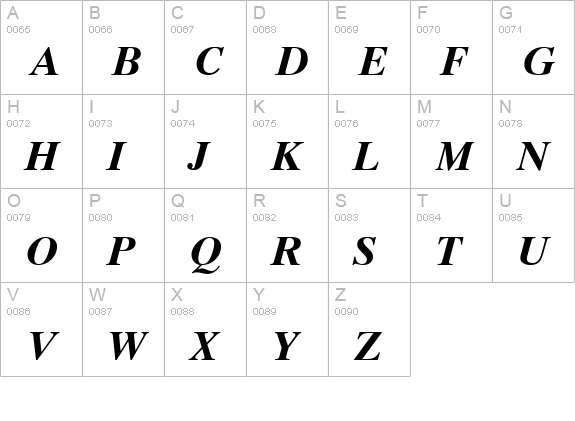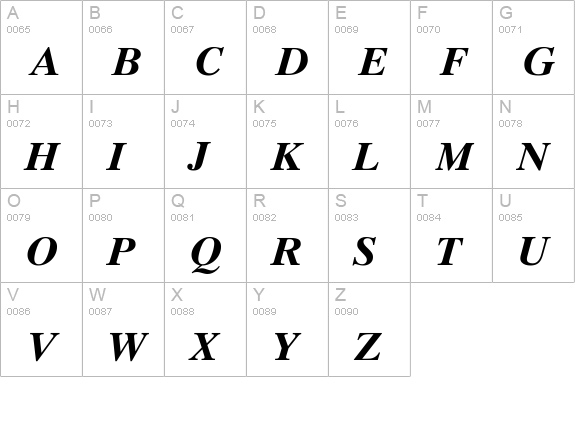
Greco Ten SSi Bold Italic is a strong, high-contrast, italic variant in the Greco typeface family \xE2\x80\x94 well suited to headlines, attention-grabbing titles, and strong calls-to-action.
Greco Ten SSi Bold Italic is a beautifully designed font that exudes elegance and sophistication. Its bold and italicized style adds a touch of flair to any project, making it ideal for headings, titles, and other eye-catching text elements. With its sleek and modern appearance, Greco Ten SSi Bold Italic effortlessly blends traditional design elements with a contemporary twist. Best of all, this stunning font is available for free download at FontsMarket.com. Whether you are a designer looking to elevate your creations or an individual seeking to add a touch of style to your documents, Greco Ten SSi Bold Italic is the perfect choice. Download this font today and bring your projects to life with its timeless charm and versatility.